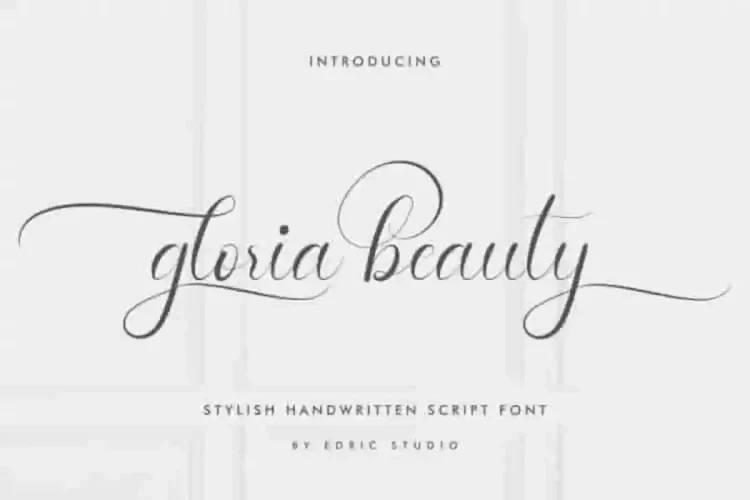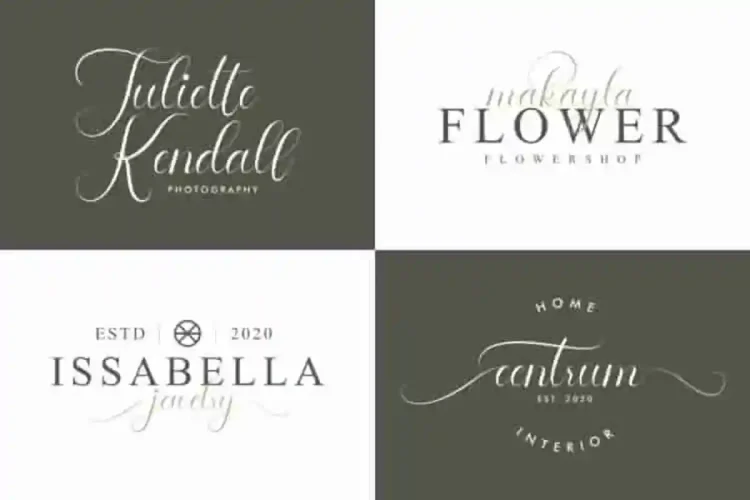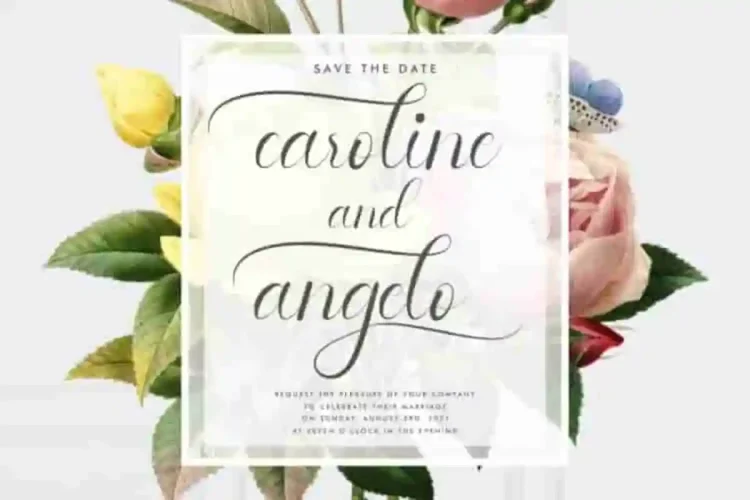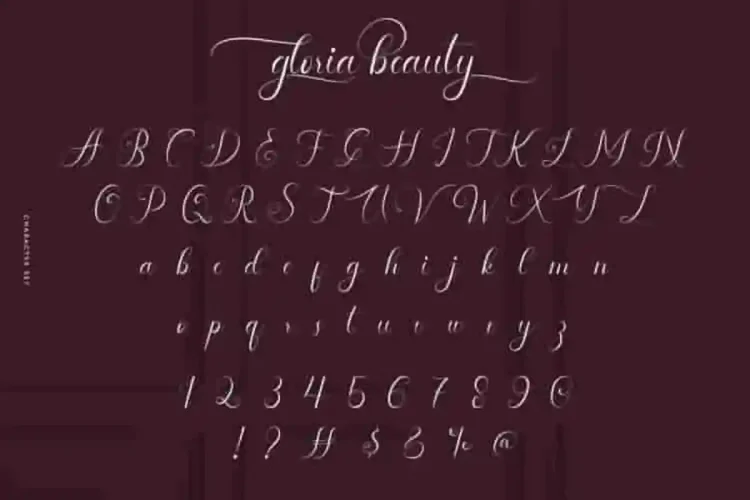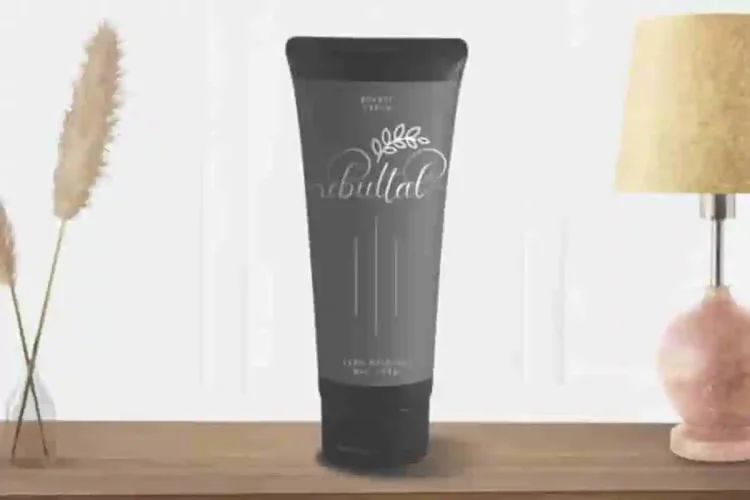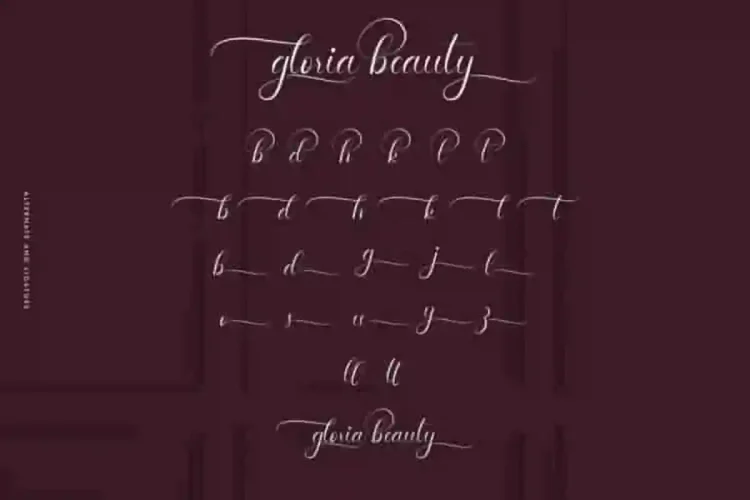
Gloria Beauty Calligraphy Script Font
Gloria Beauty Calligraphy Script Font is a calligraphy script font family with elegant unique handwriting style. A graceful script typeface from Edric Studio that brings sophistication and charm to every design. The designers of this beautiful typeface is Widi and Suci.
Gloria Beauty Calligraphy Script Font is an exclusive calligraphy script typeface with unique natural look that is simple. It has a stunning characters set, perfectly managed with well spaced and kerning.
Gloria Beauty Calligraphy Script Font will be great for any projects (with extended license) including : branding, logo, stationery, business card, signage, flyer, brochure etc. Almost all industries will be match for this typeface: wedding, events, real estate, architect, law firm, florist, gardening, makeup artist, travel, hotel, musician etc.